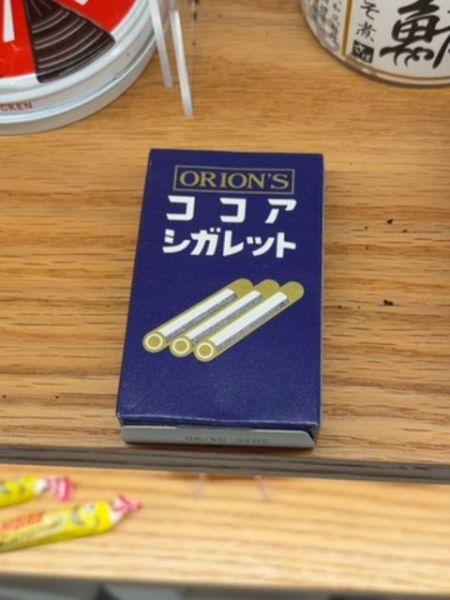
Orion's Cocoa Cigarette
A candy product made to resemble cigarettes, often enjoyed as a nostalgic treat or novelty item.
Country of Origin
Japan
Typography
The typography on the packaging uses a bold sans-serif typeface for the Japanese characters, providing a clear and direct look typical of many Japanese products. The 'ORION'S' text is set in a serif font, adding a touch of classic elegance and differentiation from the main text.
Packaging
The packaging features a deep blue color with a simple design, showing three illustrated candy cigarettes at the bottom. The box is compact, making it easy to carry and reminiscent of a pack of cigarettes.
Facts
- The product is popular as a novelty candy.
- It's known for its unique cigarette-like appearance.
- Often purchased as a nostalgic or novelty item.